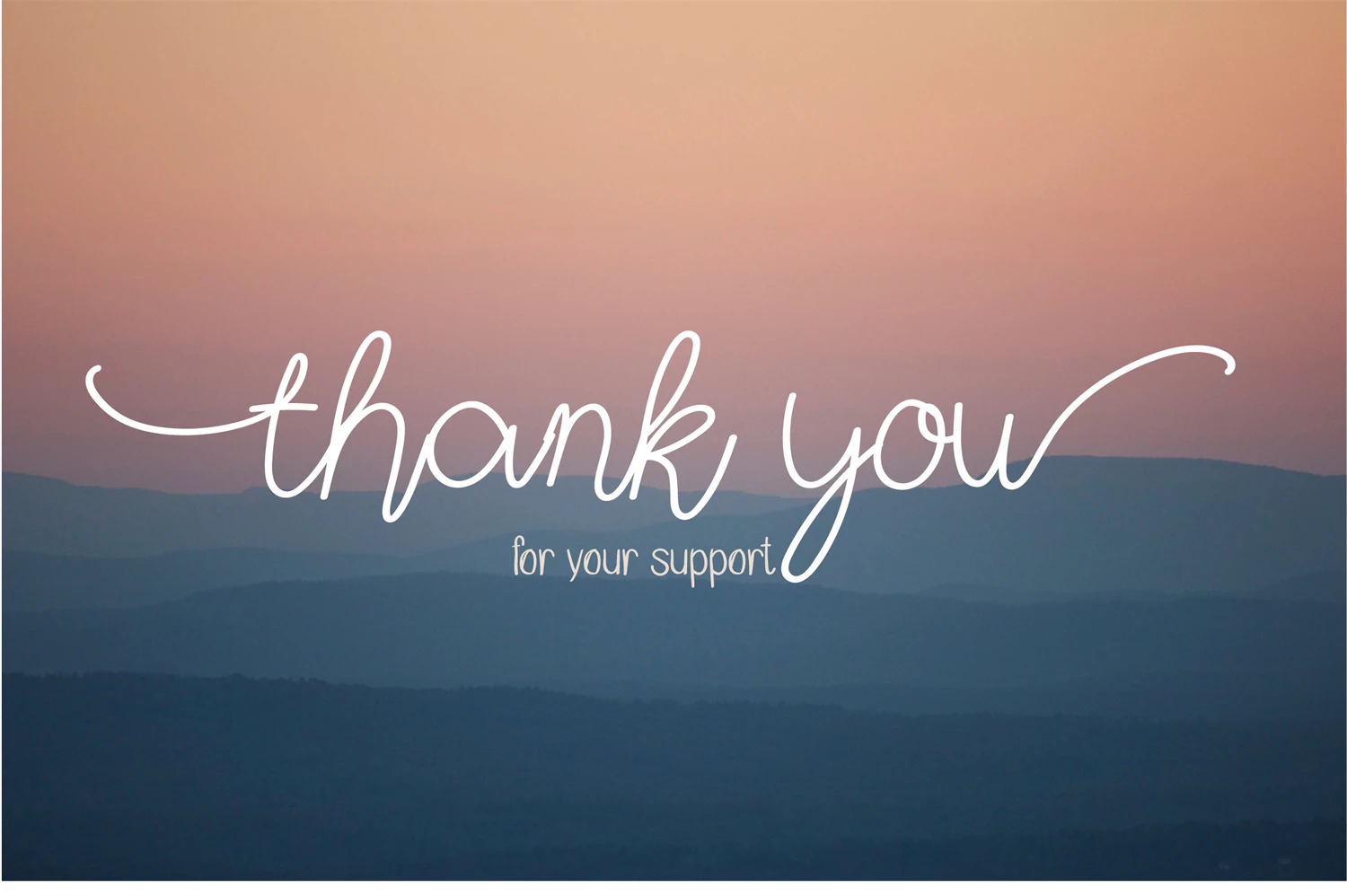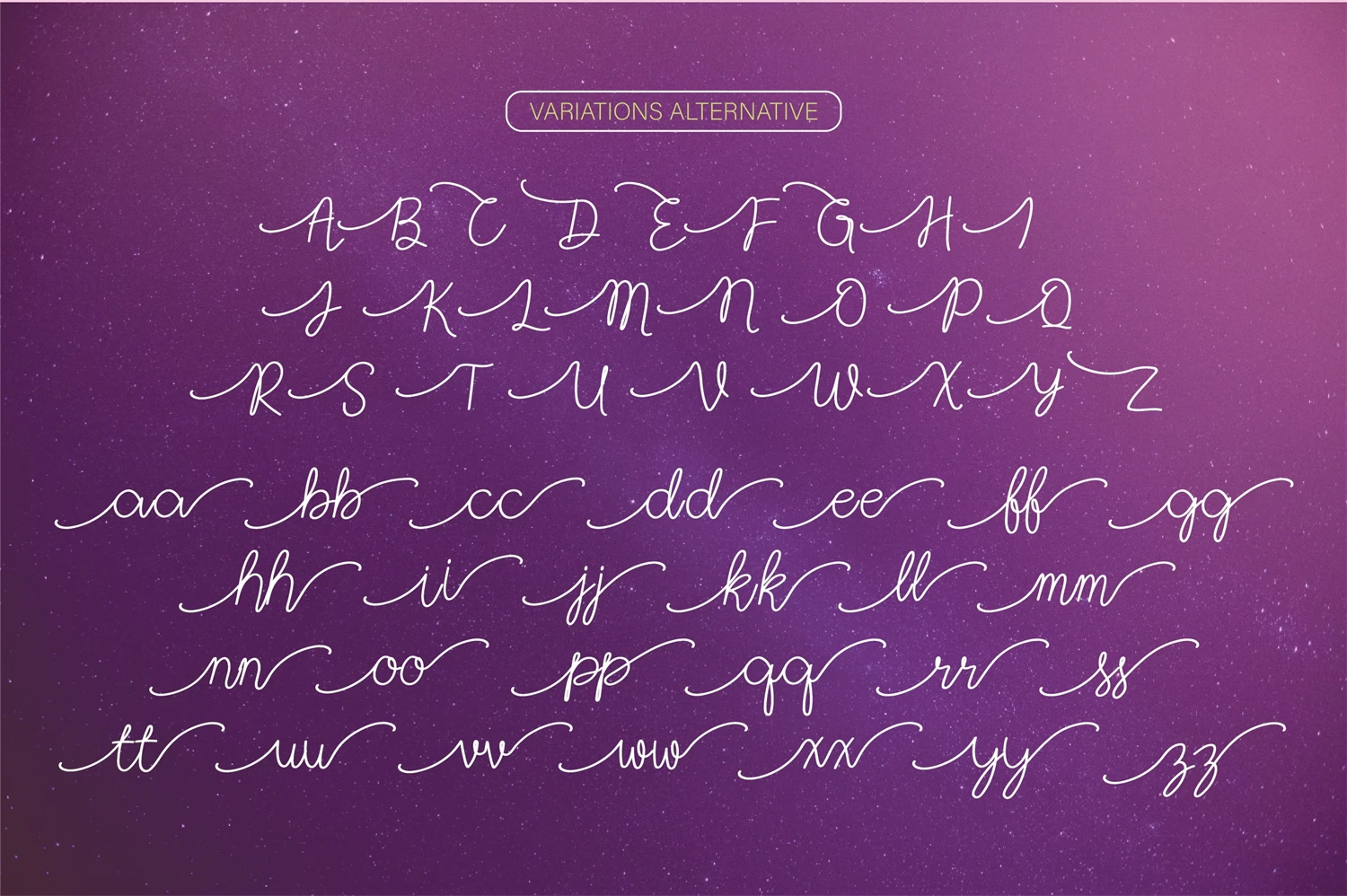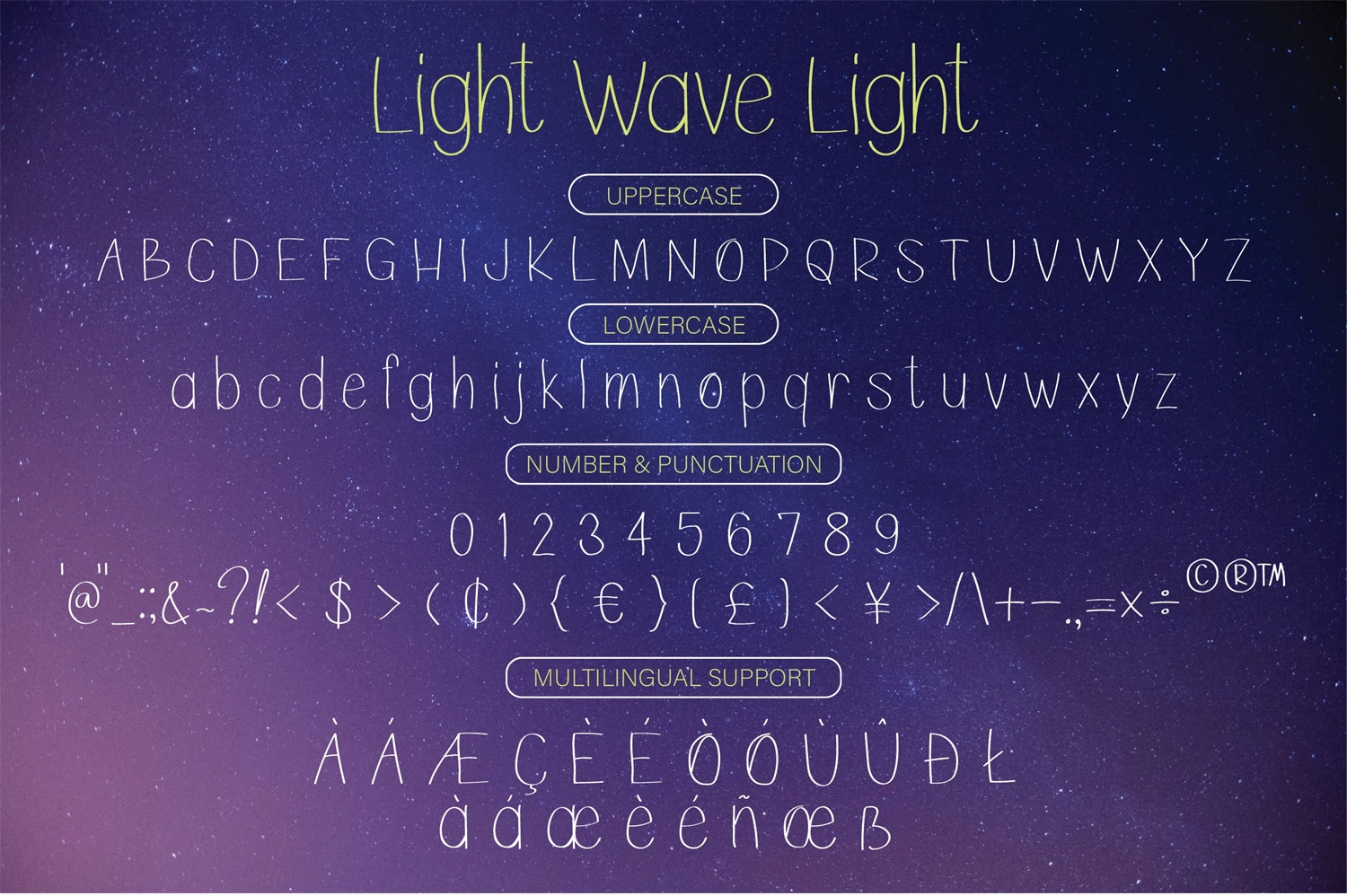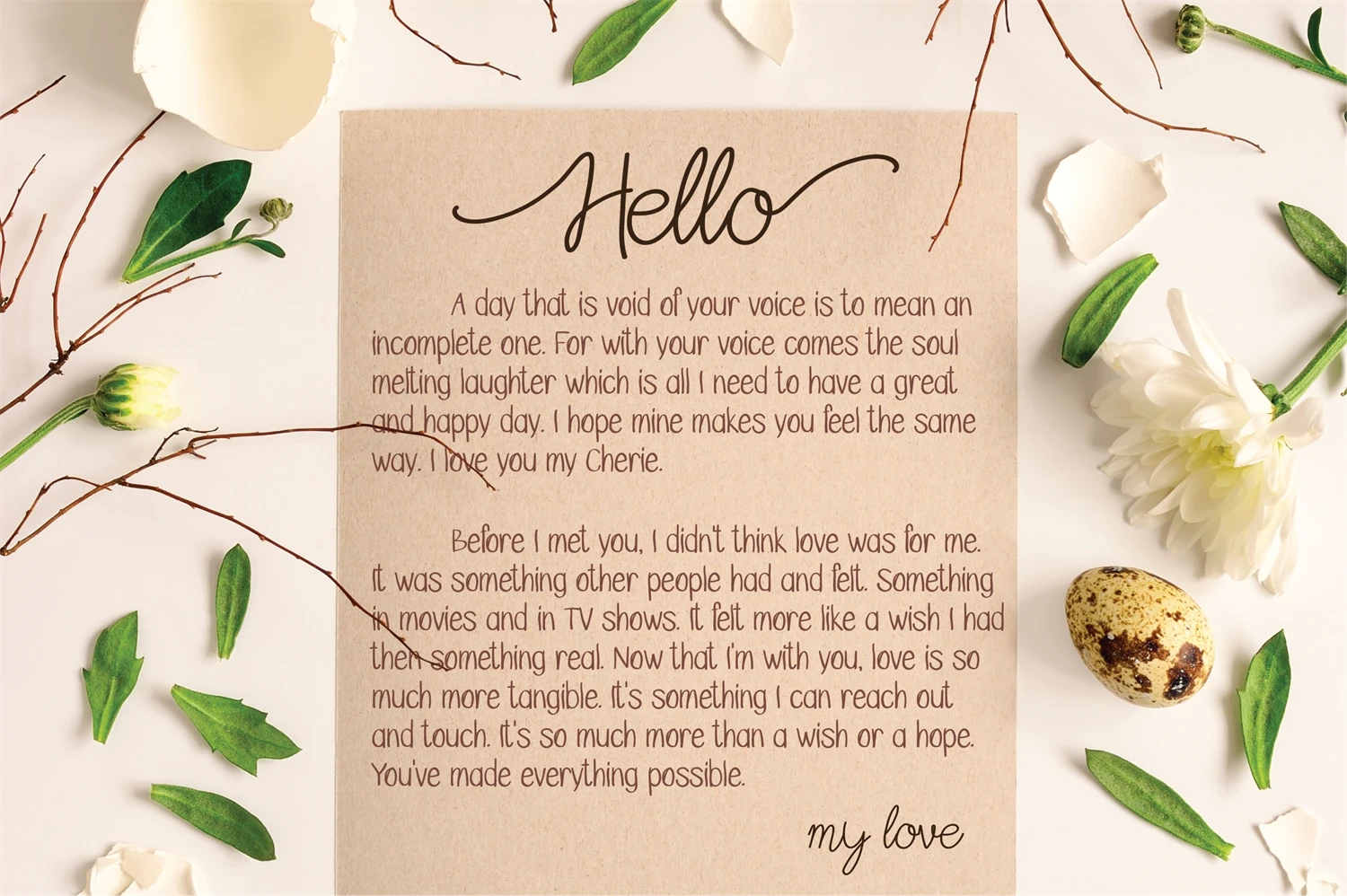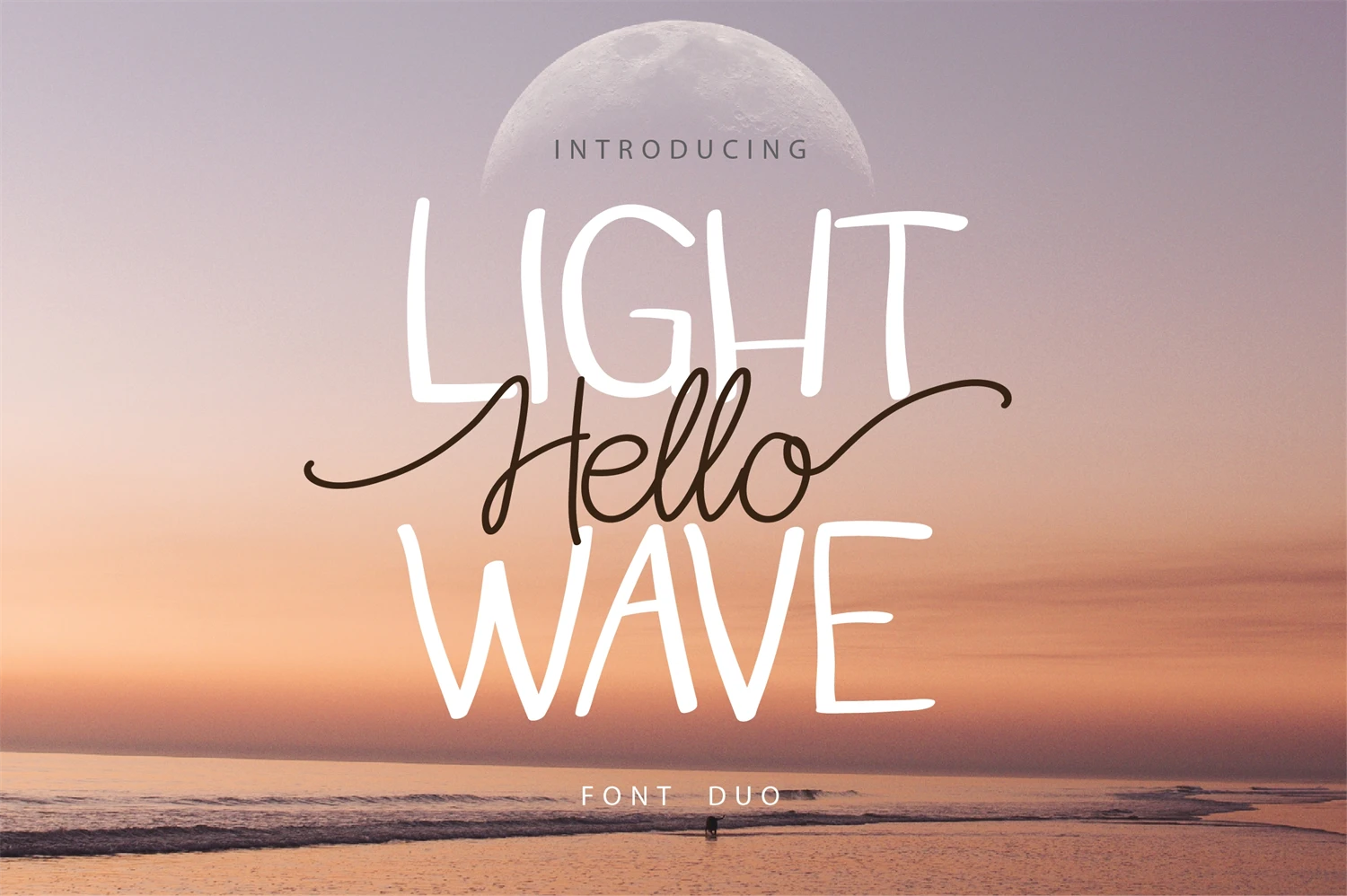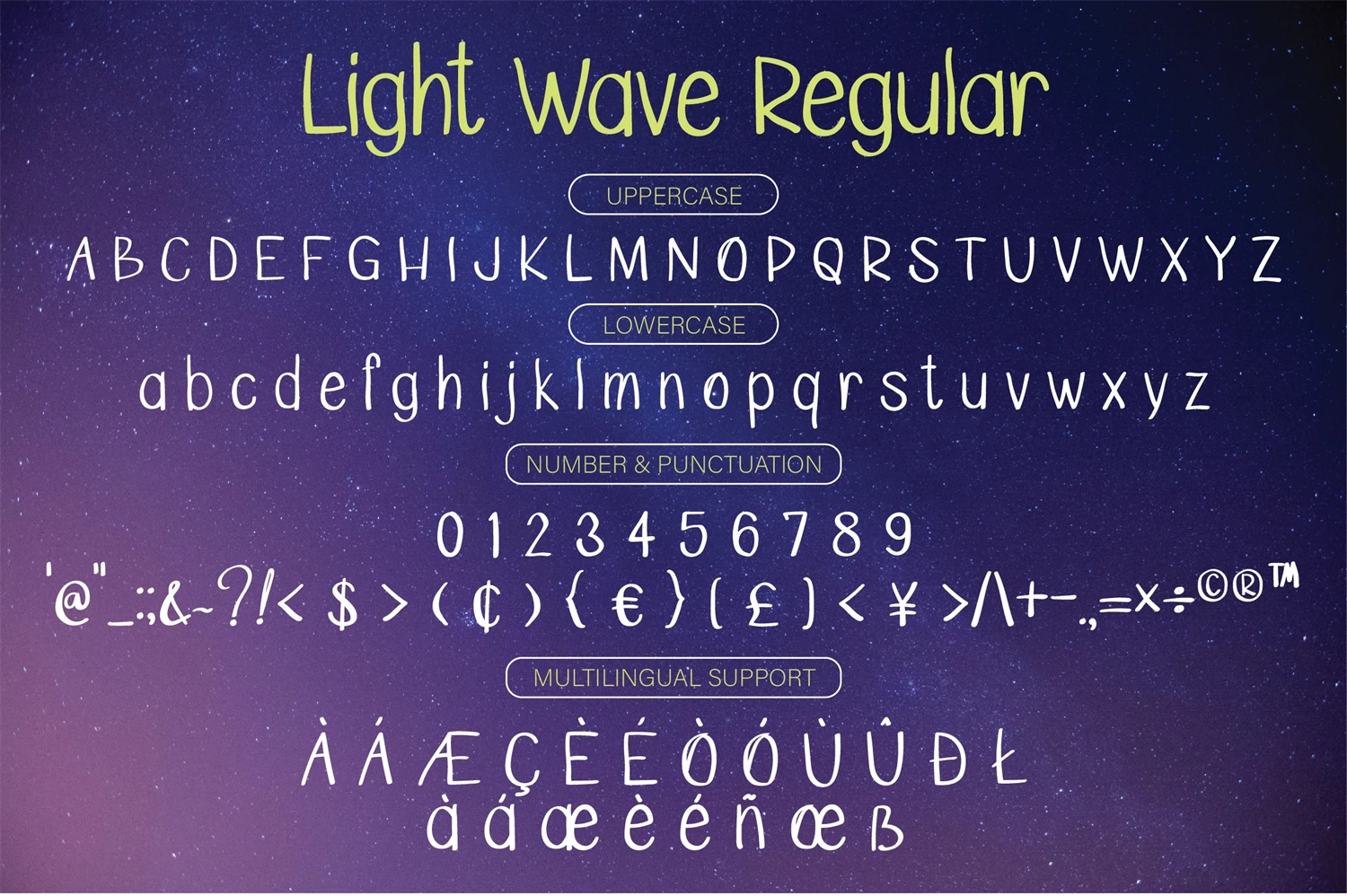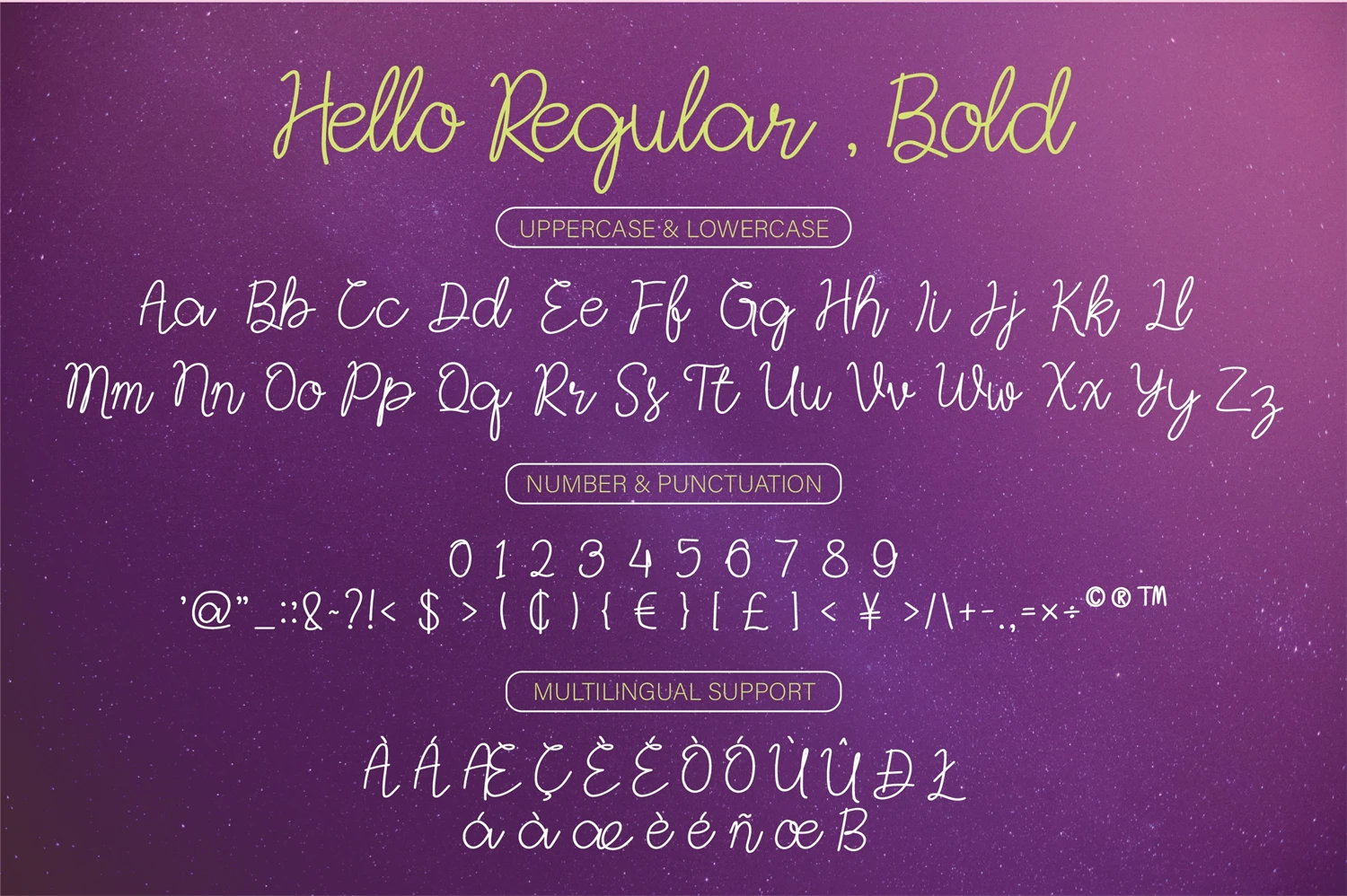
Hello Light Wave Duo Font Handmade & Handwritten Script Font
Hello Light Wave is a stunning handwritten font duo. Fall in love with its incredibly distinct and timeless style, and use it to create spectacular designs.